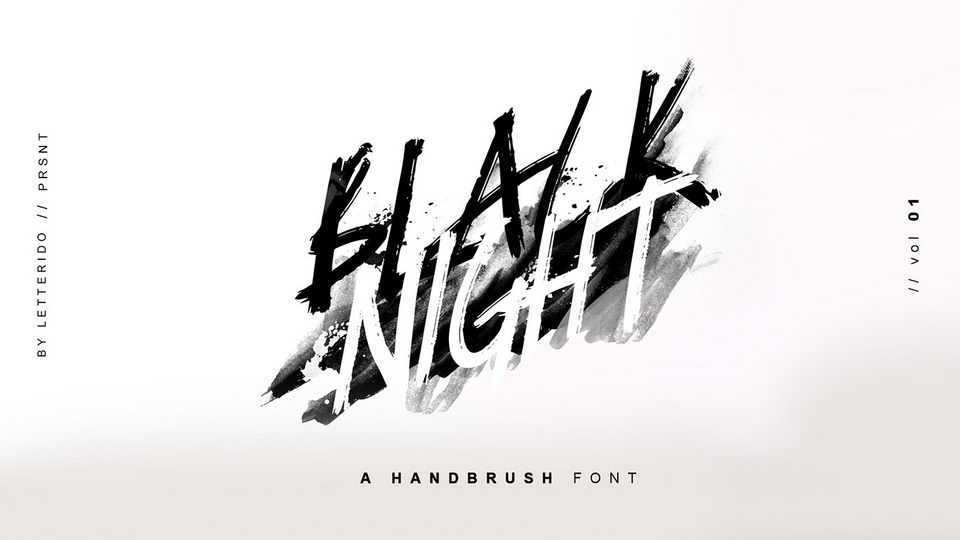
Download Blacknight font, a hand painted typeface with simple brush strokes, but the impression of power and spirit. Blacknight font is suitable for any purpose such as sports, music, festivals, traveling, video vlogs, branding, and many others.